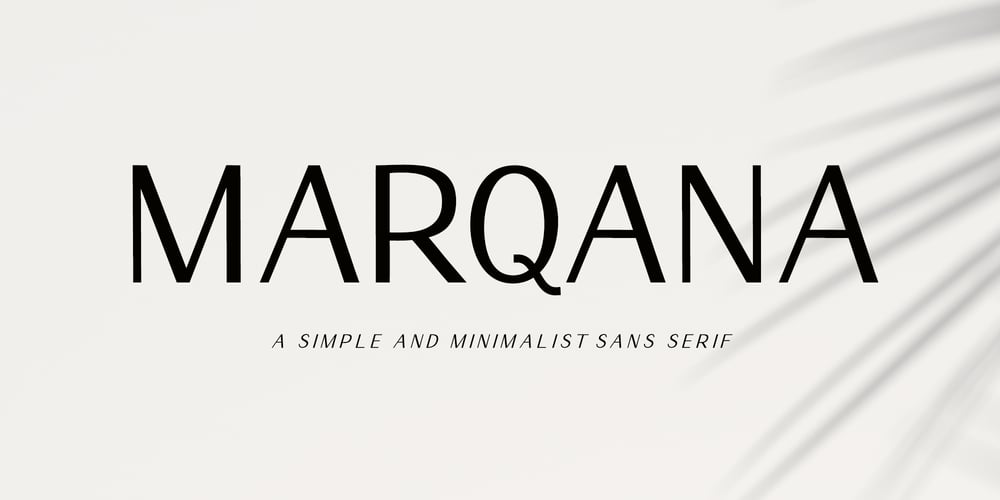
Marqana Font Family was designed by Agung Eko Nugroho and published by AEN Creative Studio. Marqana contains 2 styles and family package options. Marqana is an elegant and modern sans serif font. This font is ideal for writing web designs, business cards, or pretty much anything else that requires a unique touch.